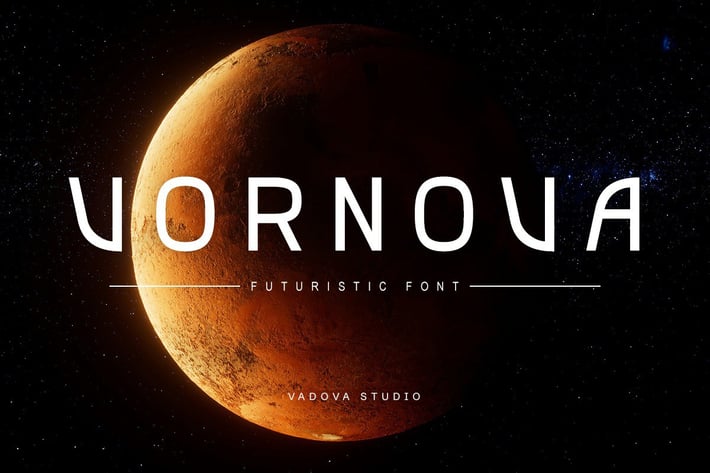
Vornova Futuristic Font
Vornova Futuristic Font is a futuristic sans-serif typeface that blends elegant curves with sharply modern angles—purpose-built for visionaries, creators, and innovators. It exudes strong sci-fi energy, making it a perfect fit for digital landscapes, space-inspired aesthetics, and future-forward branding. Vornova stands out with confident personality. It’s ideal for branding, UI/UX, packaging, editorial design, game titles, poster headlines, and cinematic intros.
Main Features
Uppercase & Lowercase characters
* Numeral & Punctuations
Varnova Suitable foris a perfect fit for a wide range of design applications that demand a futuristic tone. From sci-fi movie posters and cinematic titles, to branding for future-focused products, UI game titles and HUD interfaces, tech conference presentations, and AI startup landing pages—Vornova delivers. It also excels in packaging design with space-age vibes, cyberpunk event flyers, fashion techwear logos, e-sports team identities, and even branding projects within the Metaverse and Web3. Its versatility and sharp aesthetics make it a powerful choice across both digital and print formats.